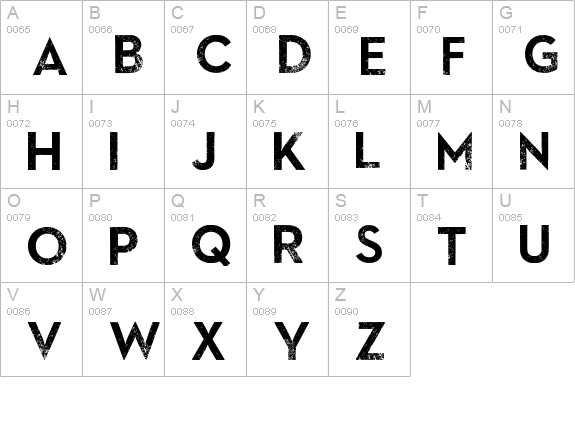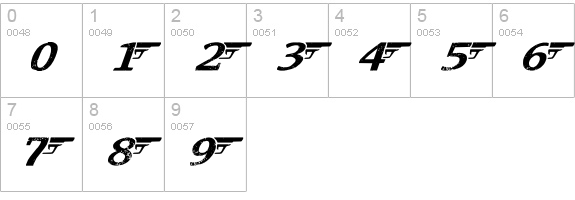
Introducing SkyFall Done, a breathtakingly beautiful font that will make your designs soar to new heights. This exquisite typeface captures the essence of elegance and sophistication, with its graceful curves and delicate letterforms. SkyFall Done is not just a font, it's a work of art. With its versatile yet distinctive style, SkyFall Done is perfect for a wide range of design projects. Whether you're creating a stunning logo, designing a captivating poster, or crafting an eye-catching website, this font will elevate your work to the next level. Its timeless appeal will effortlessly captivate your audience and leave a lasting impression. One of the best things about SkyFall Done is that it is completely free. Yes, you read that right. This exceptional font is freely available to download at FontsMarket.com. Now you can access this extraordinary typeface without breaking the bank or compromising on quality. It's the perfect solution for designers, artists, and creatives who want to add a touch of sophistication to their work without the hefty price tag. Not only is SkyFall Done free, but it also comes with a wide range of features and options. With multiple weights and styles, you can customize this font to suit your specific design needs. Whether you're looking for a bold and impactful look or a more subtle and refined aesthetic, SkyFall Done has got you covered. But don't just take our word for it, try SkyFall Done for yourself. Download it today from FontsMarket.com and experience the beauty and versatility of this incredible font. Get ready to elevate your designs and make a lasting impression with SkyFall Done.